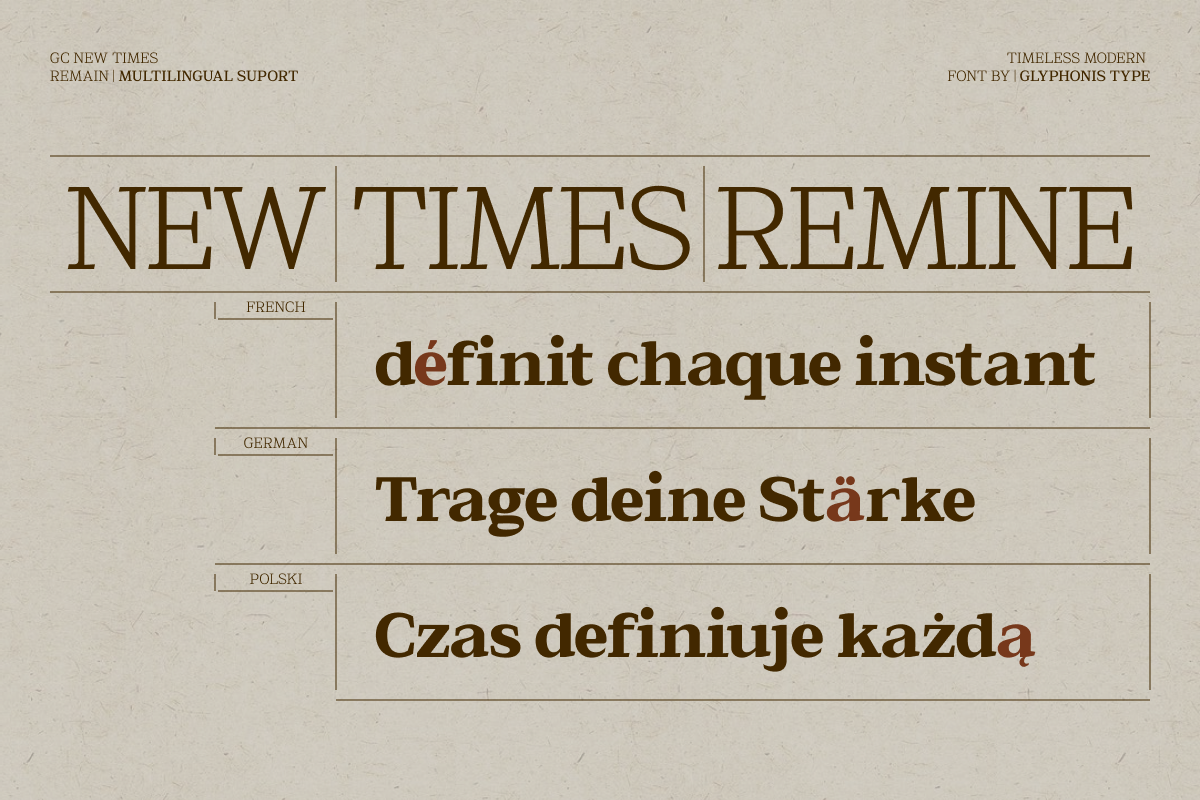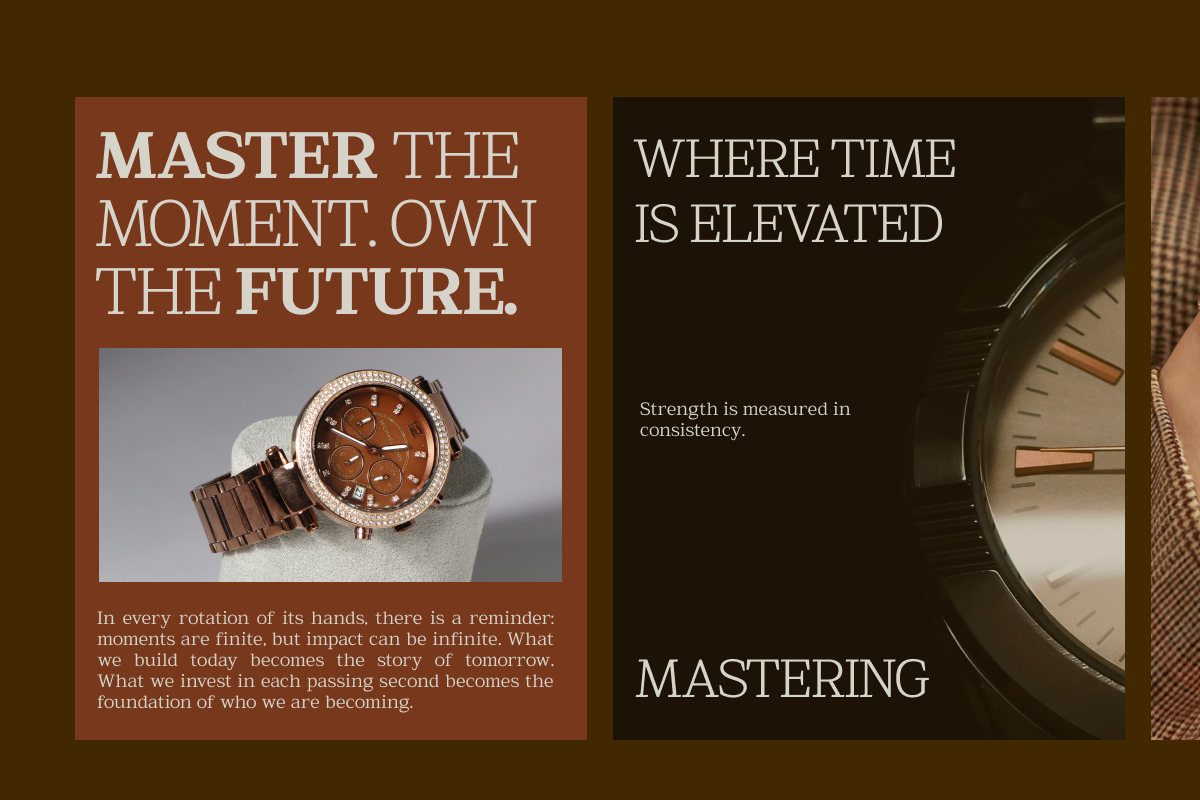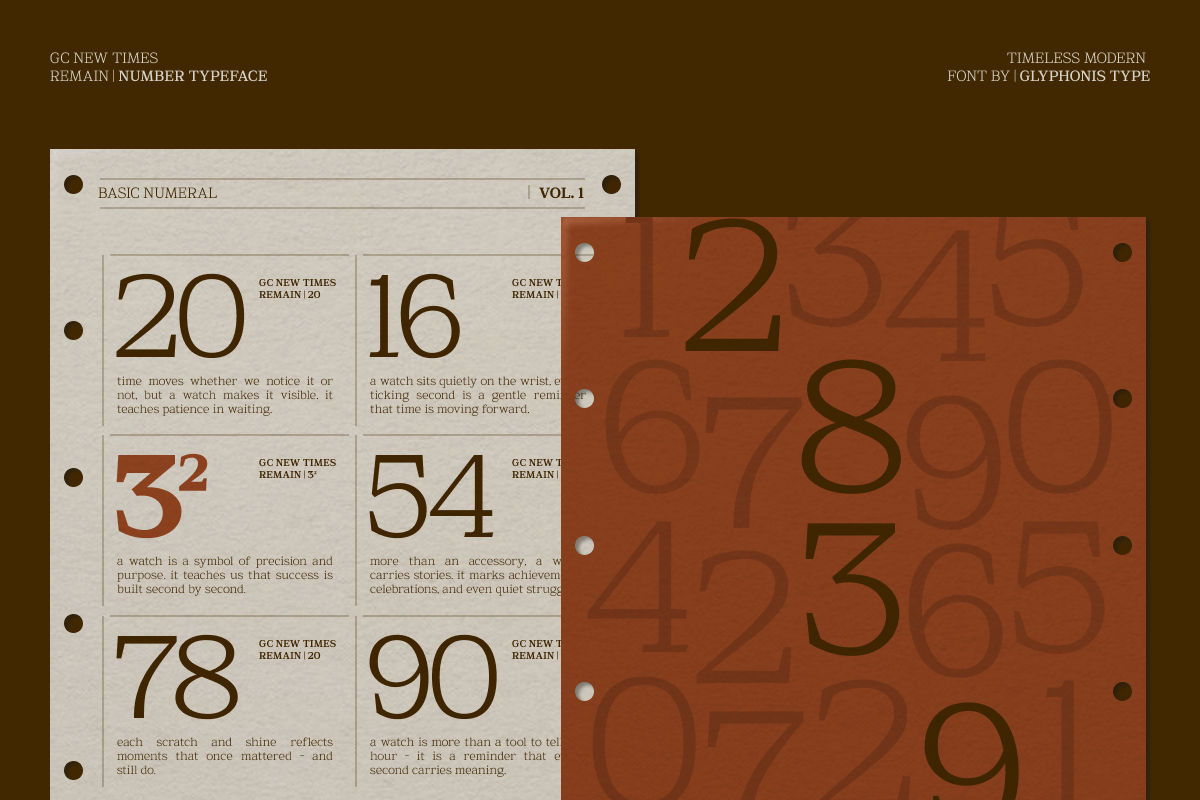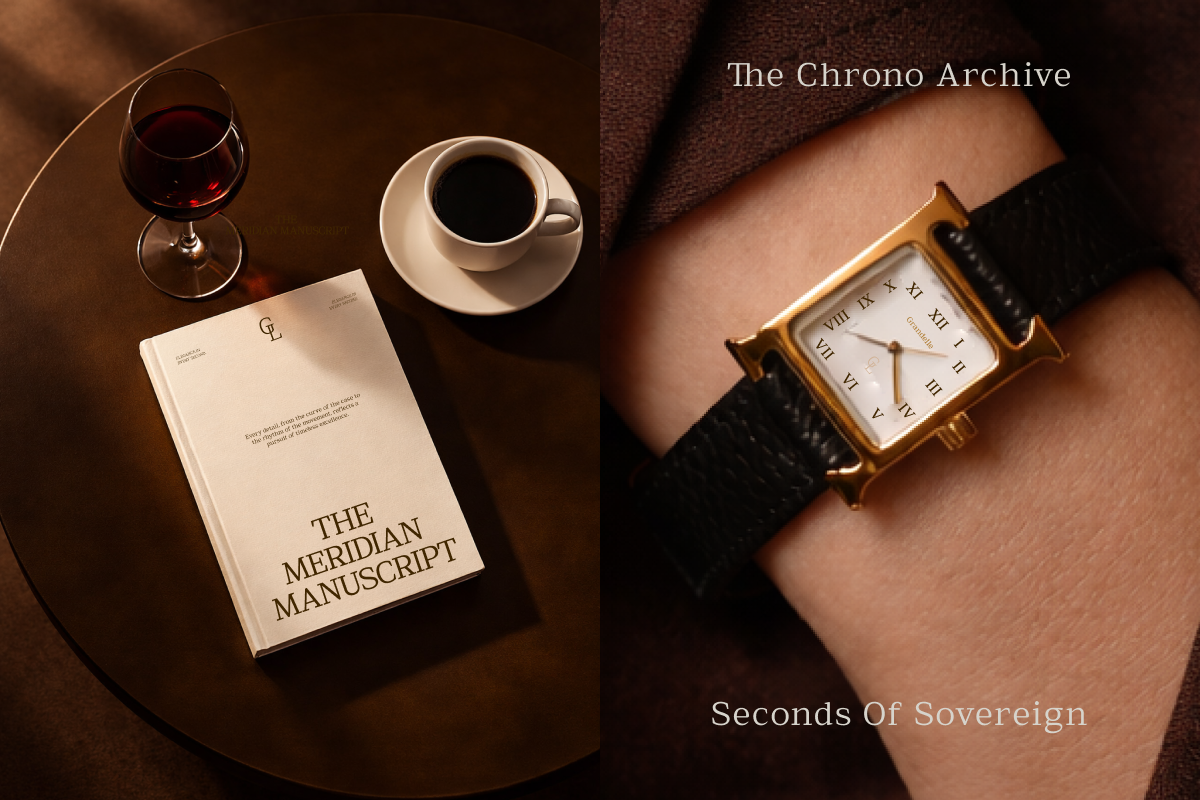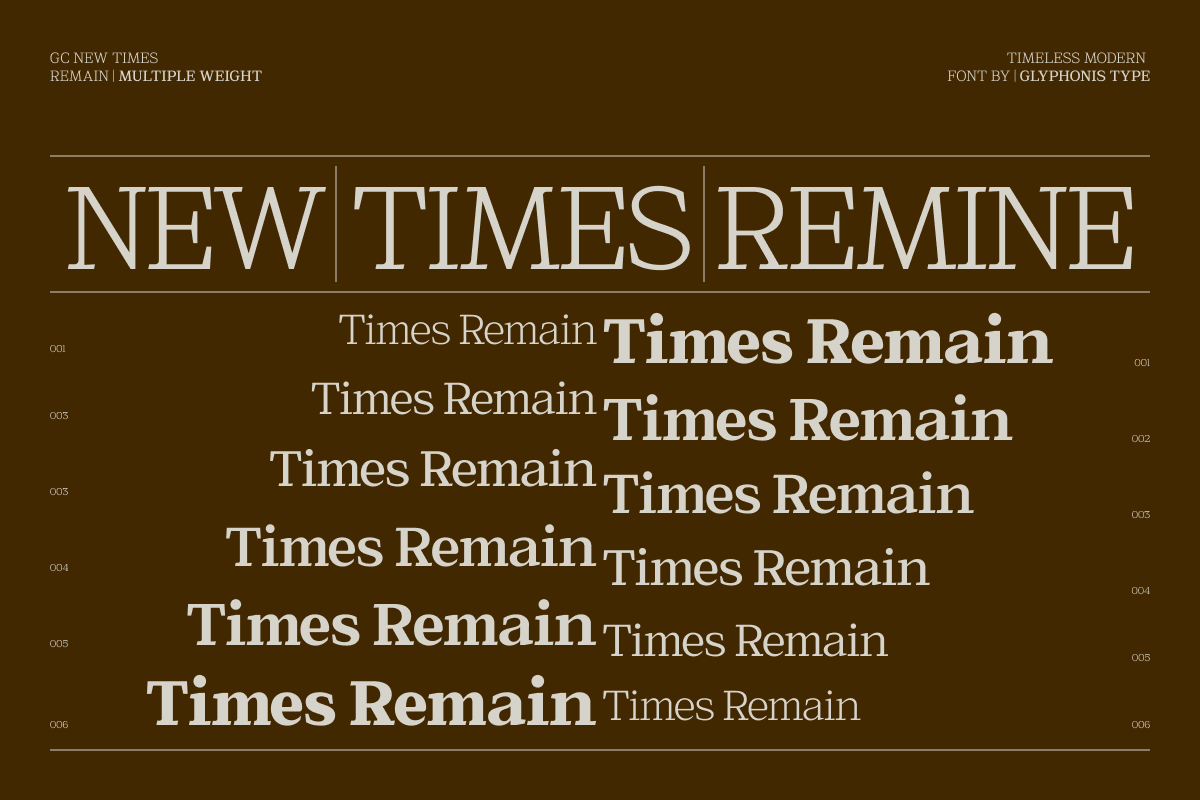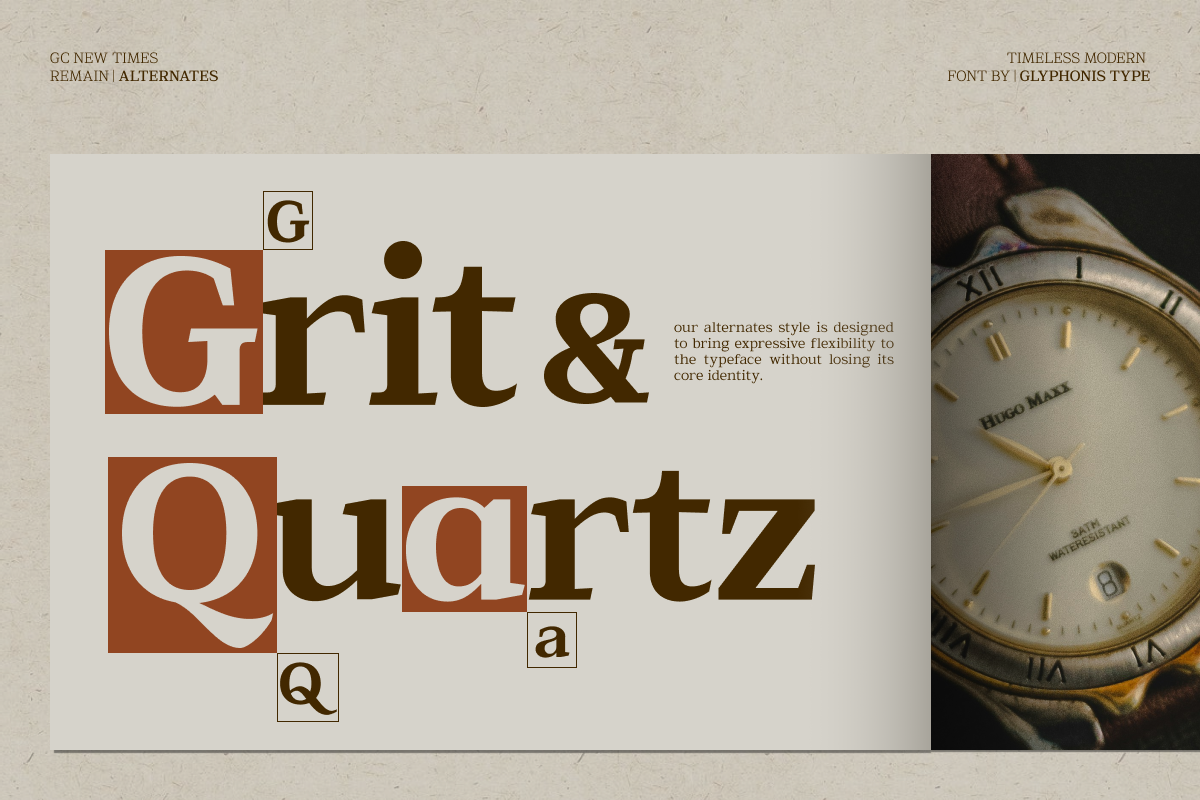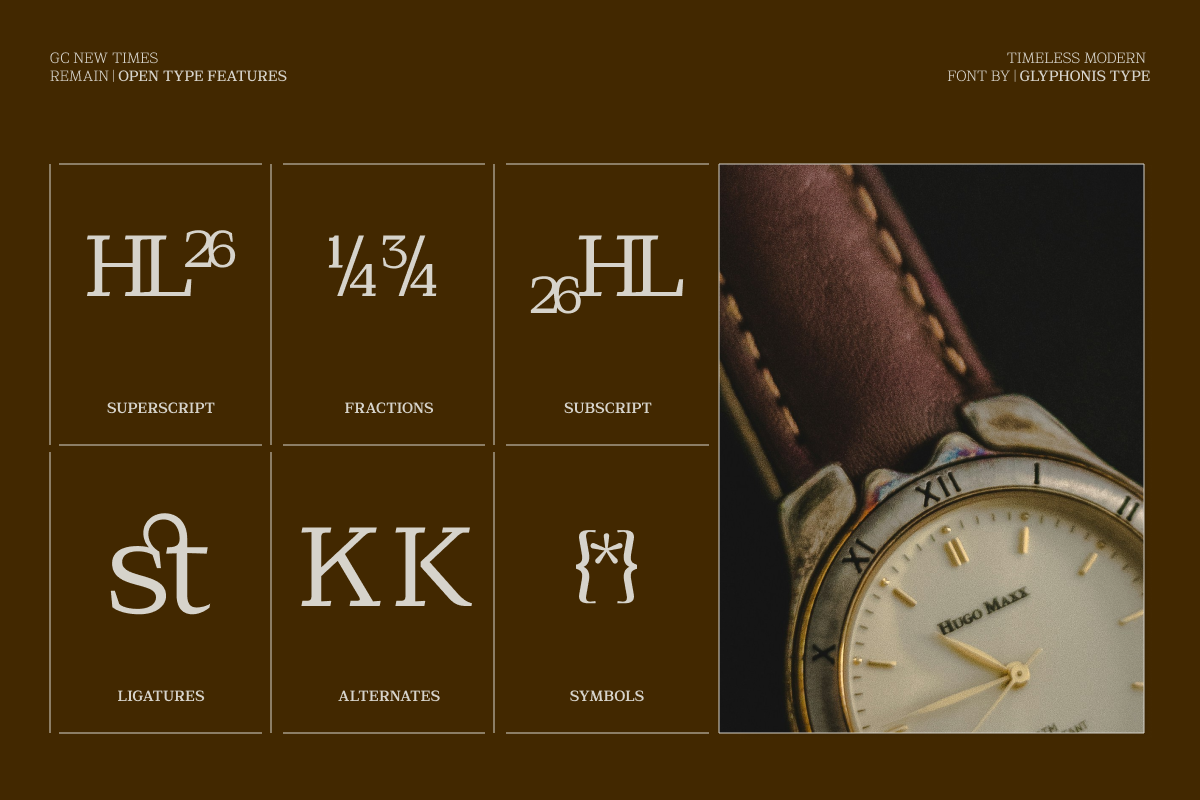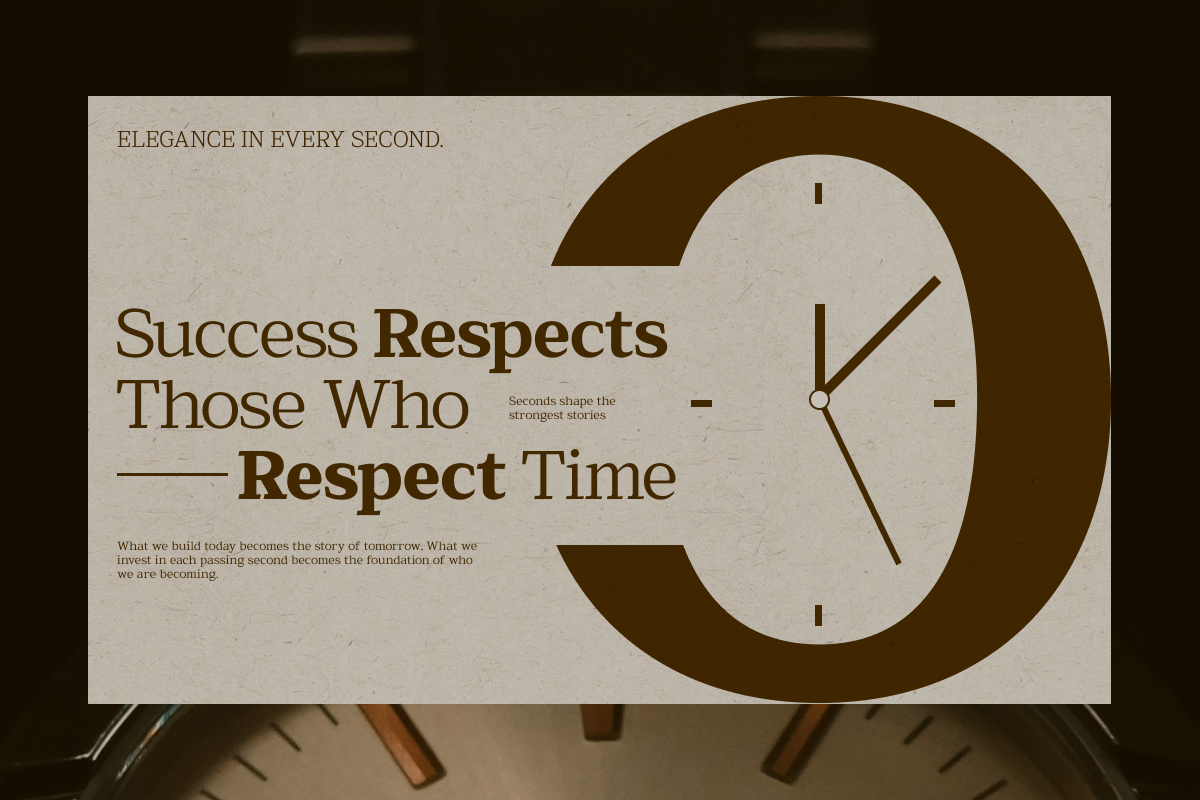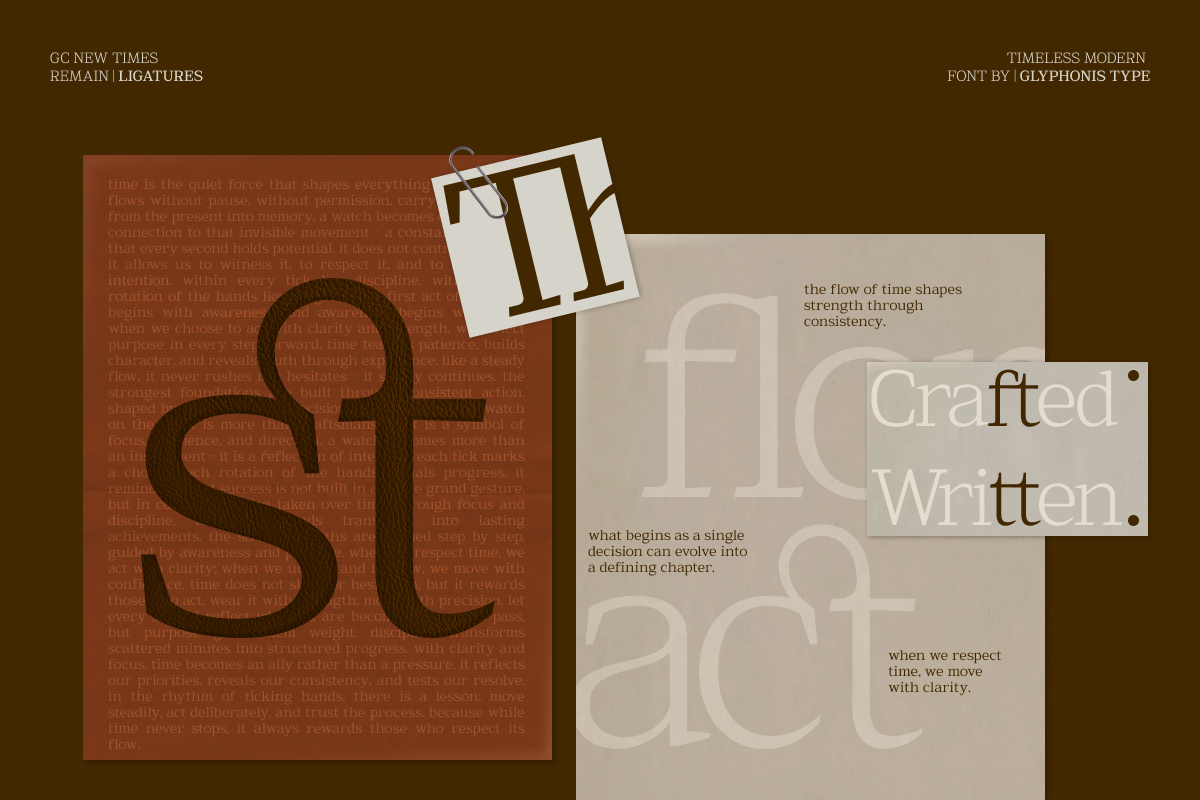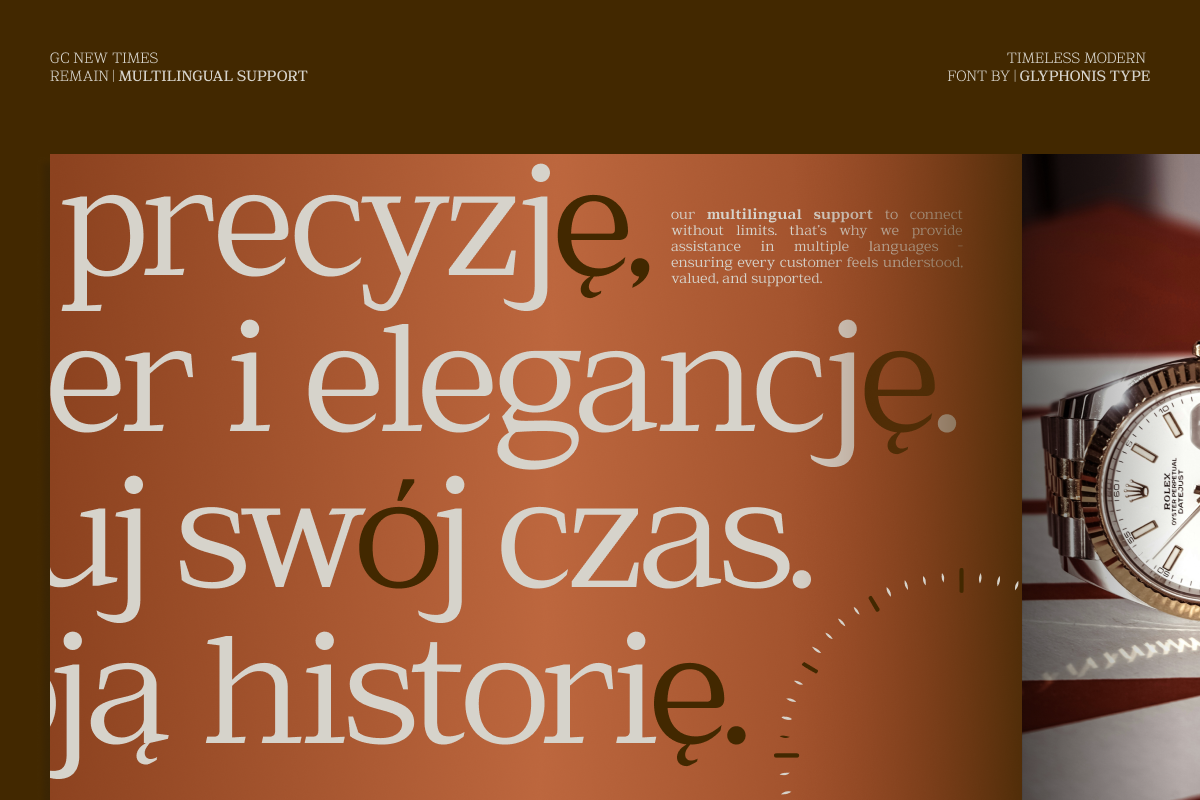
GC New Times Remain - Timeless Serif
GC New Times Remain is a timeless modern serif typeface designed to bring elegant clarity and strong editorial presence. Built with refined proportions, graceful curves, and confident structure, this typeface delivers a sophisticated typographic voice that feels both classic and contemporary.
With its clean serif construction and balanced letterforms—as seen in its sharp yet smooth details—GC New Times Remain creates a sense of authority and visual harmony. Its elegant structure makes it ideal for editorial layouts, luxury branding, book covers, packaging, and modern publishing projects where clarity and refinement are essential.
As a variable font with 6 weight options, GC New Times Remain offers flexible control for designers to create strong hierarchy across headlines, subheadings, and body compositions. From light elegant text to bold statement typography, it maintains consistency and readability throughout.
Crafted for both digital and print media, this typeface blends timeless serif beauty with modern usability, making it perfect for projects that demand sophistication and lasting visual impact.
- Variable Font (6 Weight Options)
- Modern Serif Construction
- Elegant Editorial Character
- Clean & Balanced Letterforms
- Multilingual Support (170+ Languages)
GC New Times Remain — timeless serif with elegant clarity and modern editorial strength.